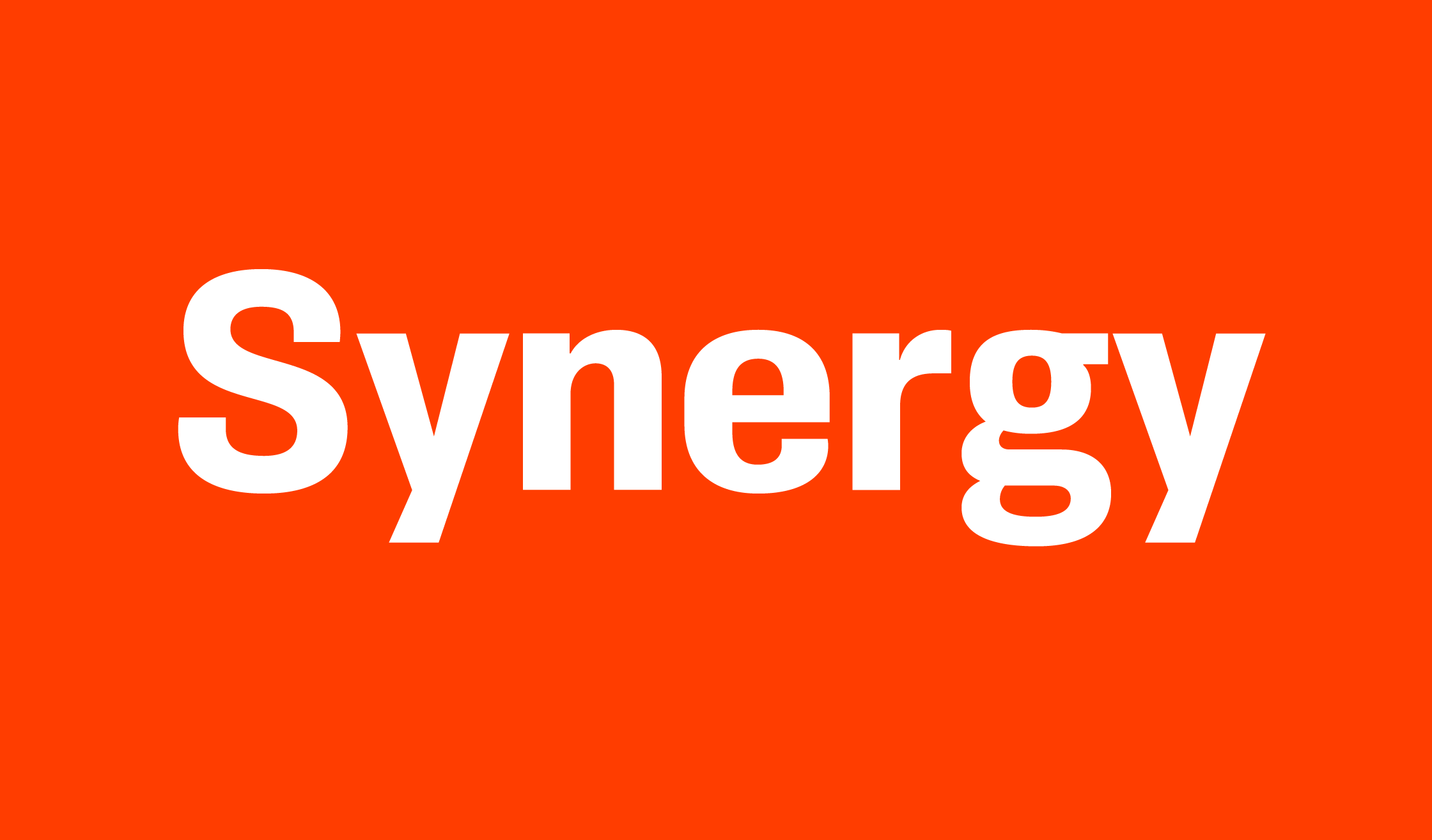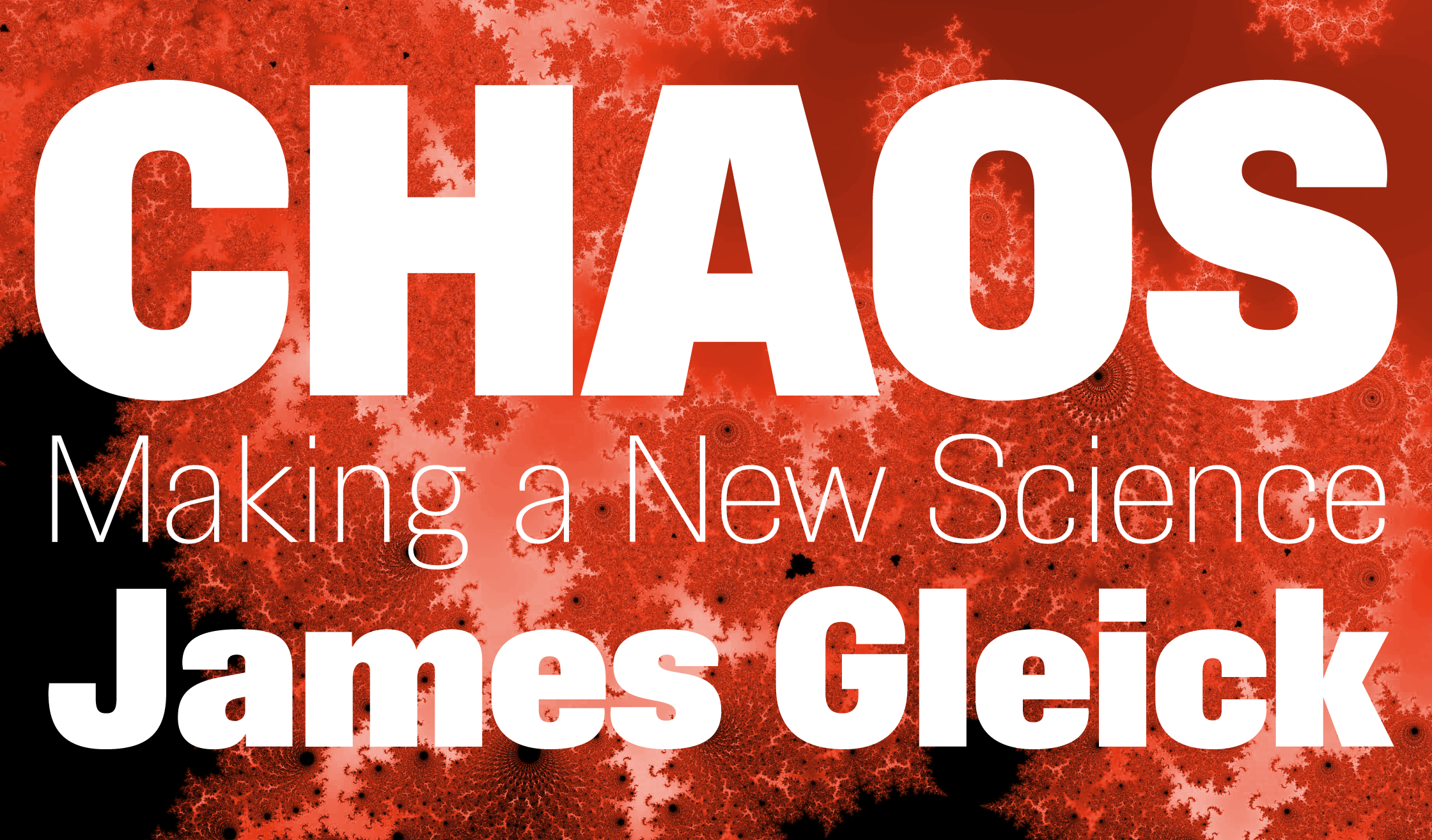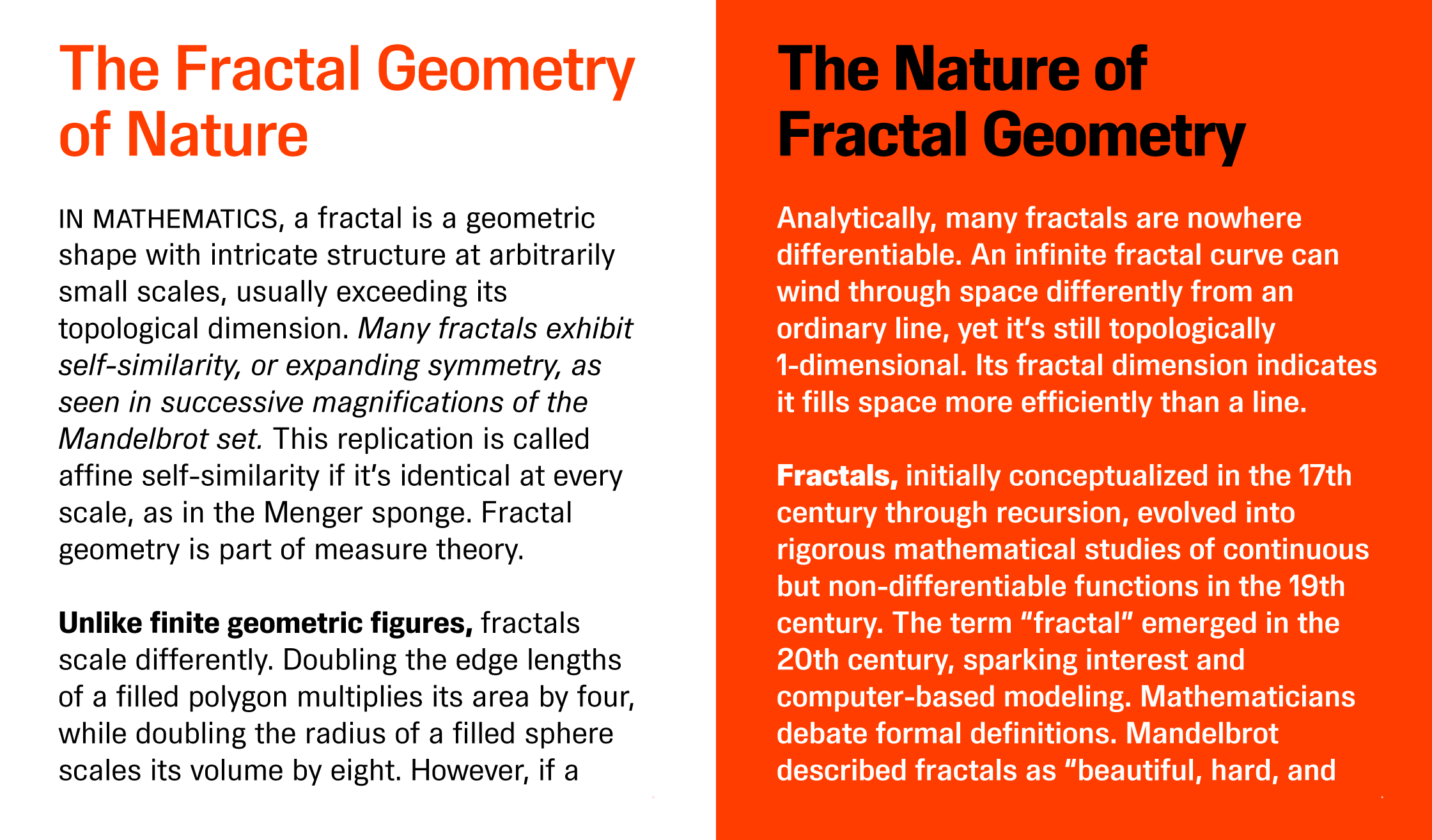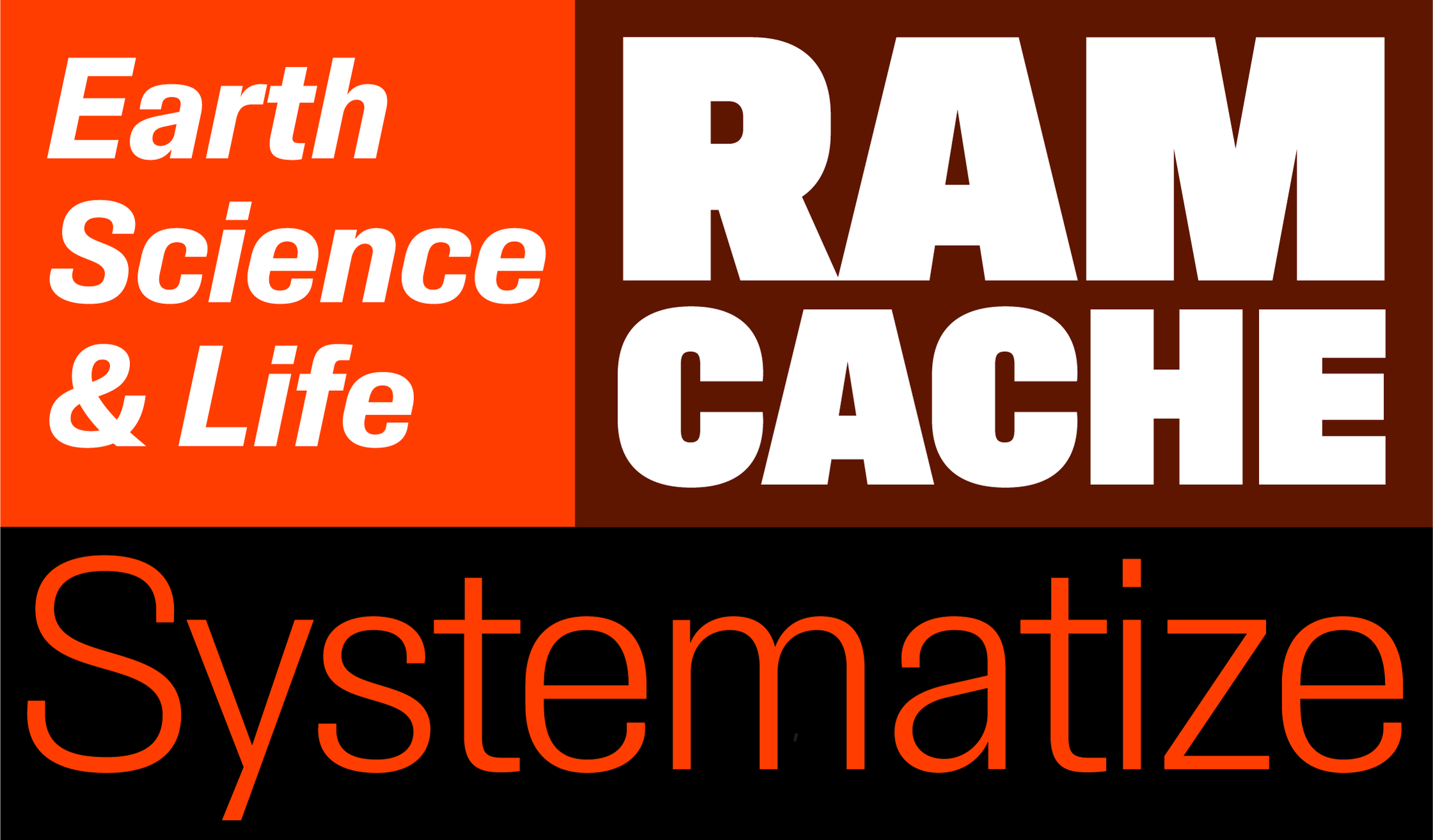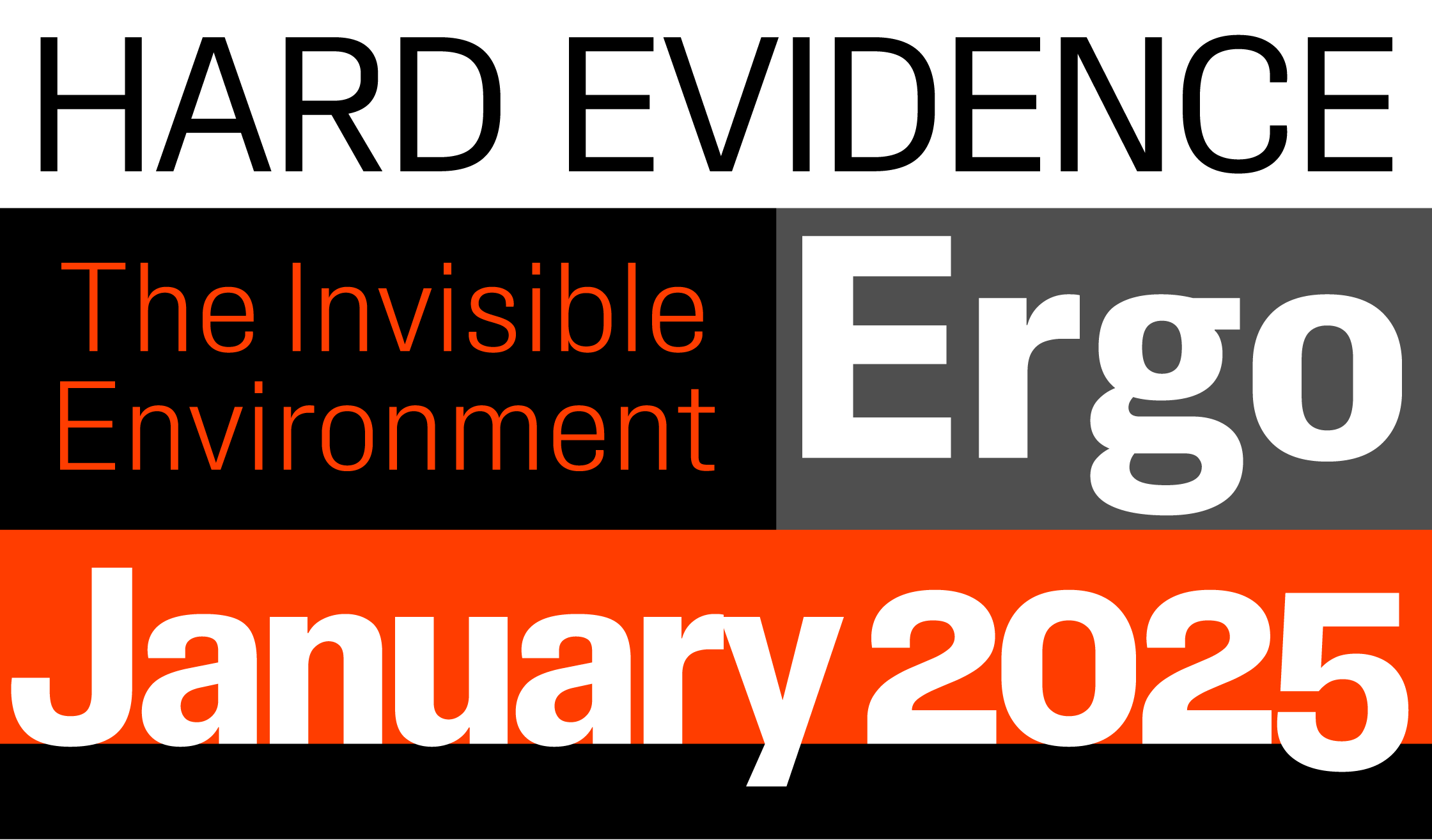
Synergy (2025) is a clean, simplified grotesque. It came out of an idea Mark Simonson had in 1981 for a “friendly” sans serif with somewhat rectilinear forms and very few angles. Some might say it is similar to Univers. It has fairly even widths for a uniform appearance, but features a two-story “g” to relieve the monotony. It’s comfortable to read in text, and the range of weights — from Hairline to Ultra — also make it suitable for display use. It is available in two variable fonts and features matching italics, small caps for all weights, and even has a handy set of dingbats.
- Dingbats & symbols.
- Filled Manicules.*
- Arbitrary fractions.*
- Extended language support for most Latin-based Western and Central European languages.